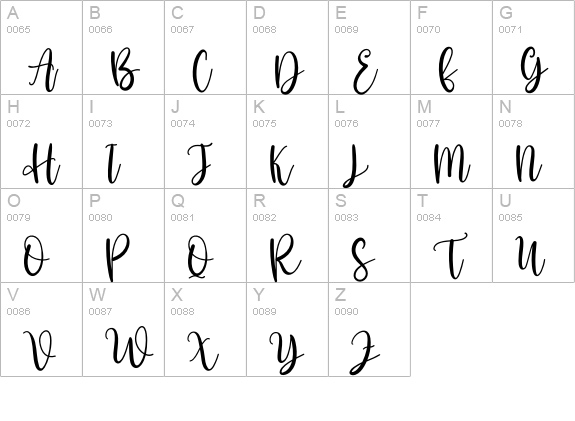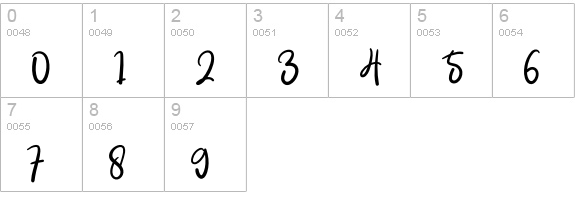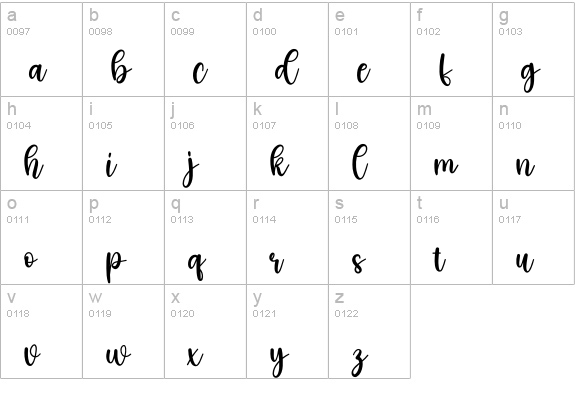
Basketball Font Details
Basketball is a free for personal use font in the Script > Handwritten category, designed by scratchones. It has been downloaded 5 times and is available for Windows, Mac and Linux.
The Basketball font is a bold and dynamic typeface that captures the energy and excitement of the game. With its strong lines and athletic feel, this font is perfect for sports-related designs, posters, and branding projects. Its sleek design makes it stand out on various materials, from digital screens to printed materials.